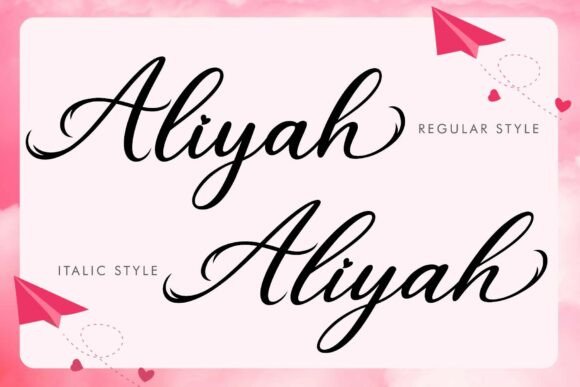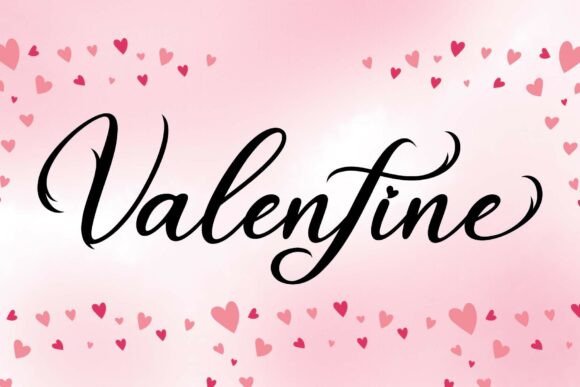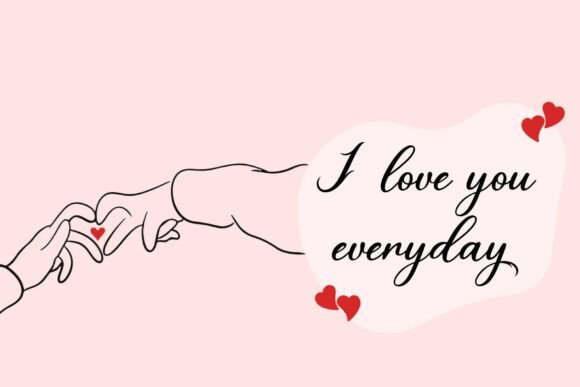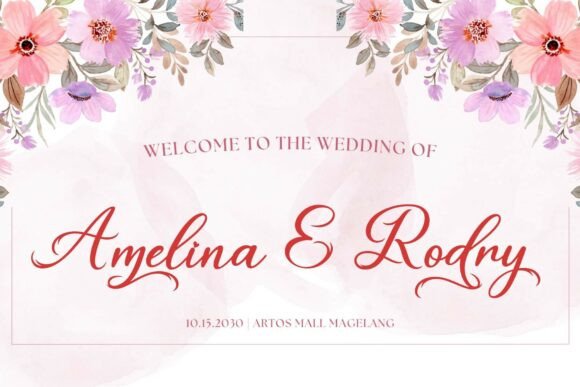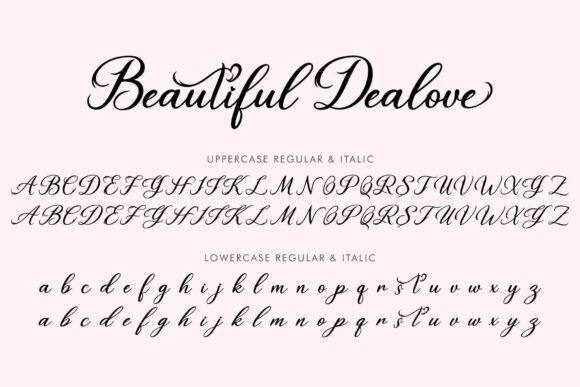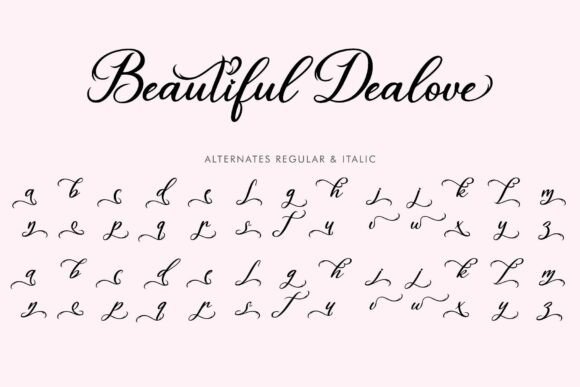
Introduction to Beautiful Dealove Font
As I sat at my desk, surrounded by scraps of paper and half-empty coffee cups, I was brainstorming ideas for a Valentine’s Day card. I wanted something special, something that would make the recipient feel loved and appreciated. And then it hit me – the Beautiful Dealove Font. Its elegant, cursive script seemed to dance across the page, exuding warmth and romance. I knew I had to have it.
But what makes the Beautiful Dealove Font so special? For one, it’s a high-quality design resource that’s perfect for any creative project. With its regular and italic styles, support for uppercase and lowercase letters, alternates, swashes, numerals, punctuations, and multilingual support, you can use it for everything from print projects to digital designs.
Key Features of Beautiful Dealove Font
- High-quality font design ideal for creative projects and digital art.
- Includes 100+ glyphs and characters, making it a versatile design resource.
Honest Review: Beautiful Dealove Font
- High-quality typography is essential for any design project, and this font delivers.
- The font is perfect for creating visually appealing text overlays, titles, and other design elements.
While the Beautiful Dealove Font is a great addition to any design collection, there are a few limitations to be aware of: ⚠️
- The font may not be suitable for use in large blocks of text due to its ornate design.
- The free version may not include all the characters and languages you need for your project.
Overall, I’m very impressed with the Beautiful Dealove Font. It’s a high-quality design resource that’s perfect for creative projects where you need to add a touch of elegance and sophistication. I highly recommend it to any designer looking for a unique and stylish font to add to their collection.
Beautiful Dealove Font is commonly used in creative projects such as logo design, branding, and graphic design. It’s also perfect for social media graphics, presentations, and marketing materials.